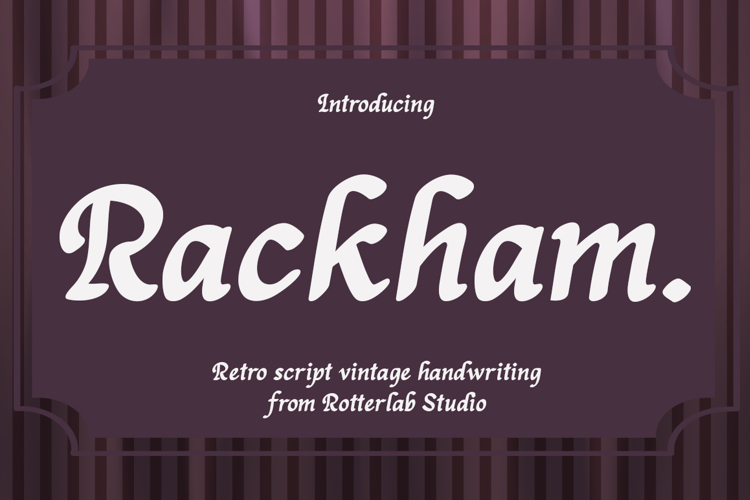
Rackham is a retro-vintage script font with an elegant and warm handwriting touch. Inspired by classic typography and the feel of old-school designs, this font features soft, flowing, and easy-to-read curves, creating a nostalgic, friendly, and timeless feel.
This font is perfect for branding, logos, product packaging, posters, titles, invitations, quotes, cafe branding, and various creative designs that require a classic and classy feel. Rackham features natural handwritten characters with a strong vintage touch, giving designs an authentic and charming look.